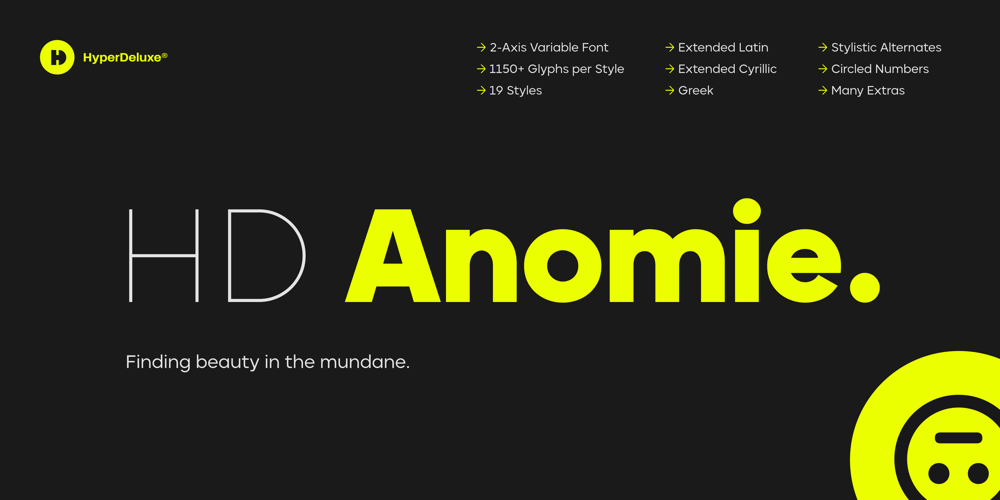
HD Anomie Font Family was designed by Daniel Jones and published by HyperDeluxe. HD Anomie contains 18 styles and family package options. HD Anomie is a modern geometric sans built in 18 styles with variable support and is brought to you by HyperDeluxe®. Its subtle forms and nuanced curves create a simple structure that could be perceived as mundane, but our goal was to create a typeface that is both mechanical and organic in its forms so it seamlessly fits within the environment it is placed.It’s clean, minimal approach gives it a wide array of offline uses such as branding, editorial & print, but its modern design and detailed build makes it perfect for UI & digital applications. The clean visual structure of the letter forms give it great readability at smaller sizes, while also being happy to be shown off at larger sizes.Built to be robust and as versatile as possible we have around 1150 Glyphs per weight including extended Latin & Cyrillic support as well as basic Greek. Anomie also features extras such as 2 arrow sets, circled numbers as well as stylistic alternates and case sensitive forms.Find beauty in the Mundane. Meet HD Anomie.